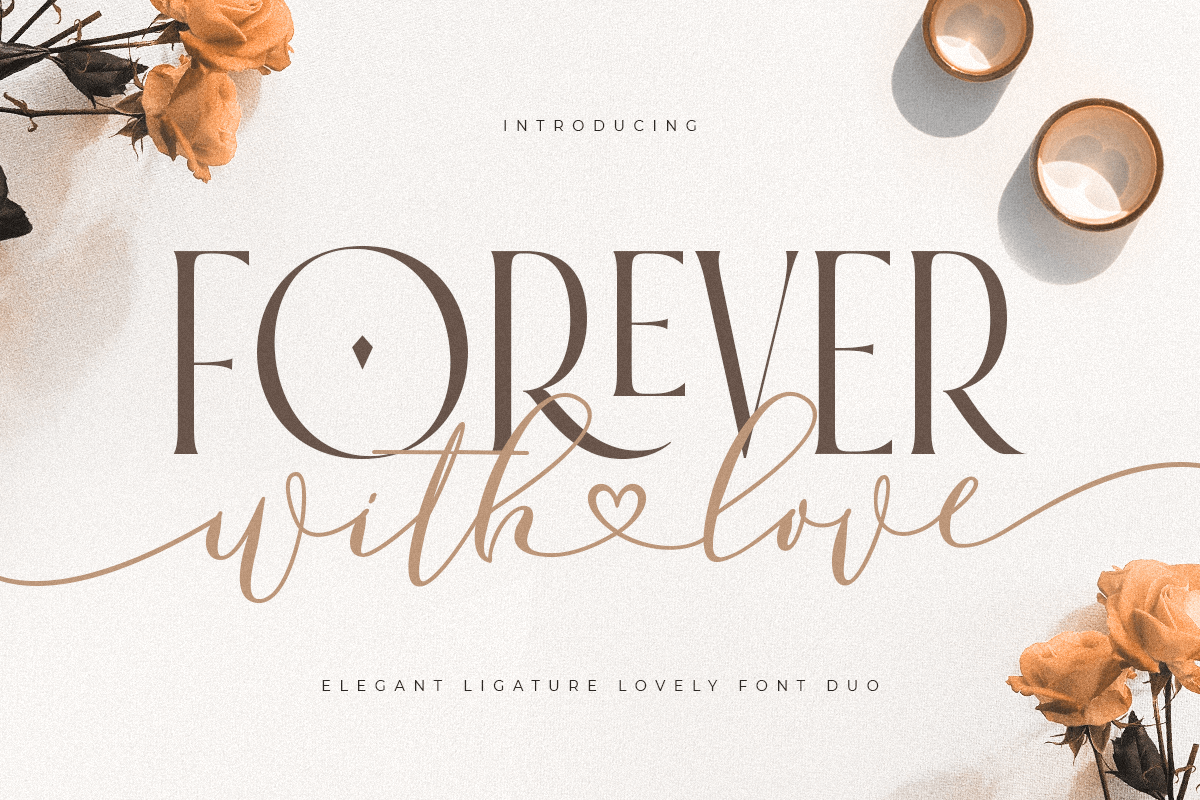
Forever With Love
-Elegant Ligature Lovely Font Duo
Forever With Love is a Elegant Ligature Lovely Font Duo best for a brand, sign, and any purpose design.
Based on our experience as a graphic designer who works for a lot of companies, we often are requested to create a classy design. So, here we try to brainstorming and create this font duo to make the idea is going out. This is perfect for BRANDING and ANY PURPOSE DESIGN. You will get classy, elegant, and certainly unique font.